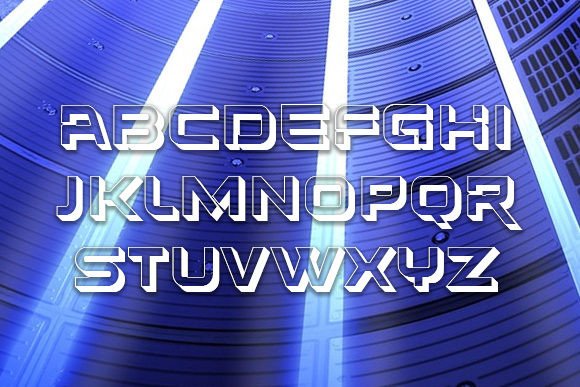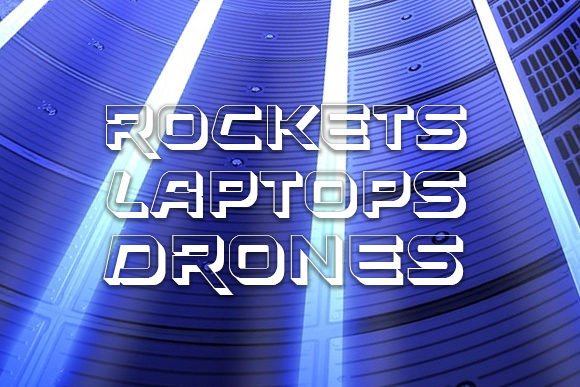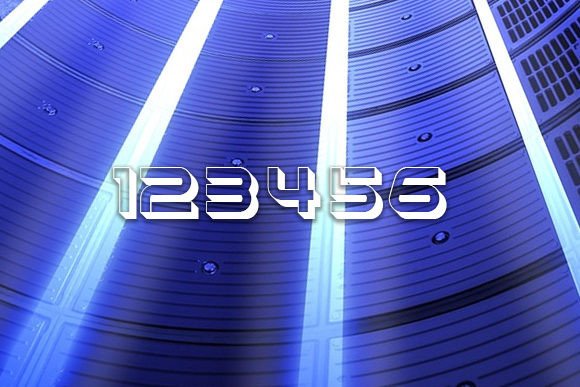
Discover the Futuristic Charm of Future Tech Font
I’ll never forget the time I was working on a futuristic tech project, pouring over design boards and brainstorming sessions, only to hit a roadblock: finding the perfect font. My client wanted something that screamed innovation and cutting-edge technology, but I was stuck in a design rut. That’s when I stumbled upon Future Tech, an awesome futuristic 3D display font that instantly elevated my project to the next level. If you’re a designer, crafter, or creative hobbyist looking for a font that will make your tech-related designs pop, you’re in the right place!
An Honest Review of Future Tech Font
- ✨ Stunning 3D Effect: Future Tech’s 3D display effect is simply mesmerizing, adding a level of sophistication to any design project.
- ✅ Easy to Read: Despite its futuristic look, the font remains surprisingly legible, making it perfect for posters, flyers, and even shirts.
- 💻 Versatile: Future Tech works beautifully for a wide range of tech-related projects, from robotics and AI to cybersecurity and gaming.
While Future Tech is an amazing font, there are a few things to keep in mind:
- 🤔 Limited Use Cases: Due to its bold and futuristic design, Future Tech might not be the best fit for more traditional or formal projects.
- ⚠️ Overuse: As with any bold font, be careful not to overuse Future Tech, as it can quickly become overwhelming.
A Practical Guide to Using Future Tech Font
- Explore OpenType features, glyphs, and stylistic alternates to customize your text.
The Backstory Behind Future Tech Font
Future Tech was designed by a team of creatives who wanted to capture the essence of innovation and technological advancement. Inspired by classic sci-fi movies and futuristic architecture, they crafted a font that embodies the spirit of progress and forward thinking.
Q: What type of projects is Future Tech best suited for?
A: Future Tech is perfect for tech-related projects, such as posters, flyers, shirts, and digital graphics.
Q: Is Future Tech available in different weights or styles?
A: Currently, Future Tech is available in a single weight, but its versatility and range of OpenType features make it suitable for various design applications.